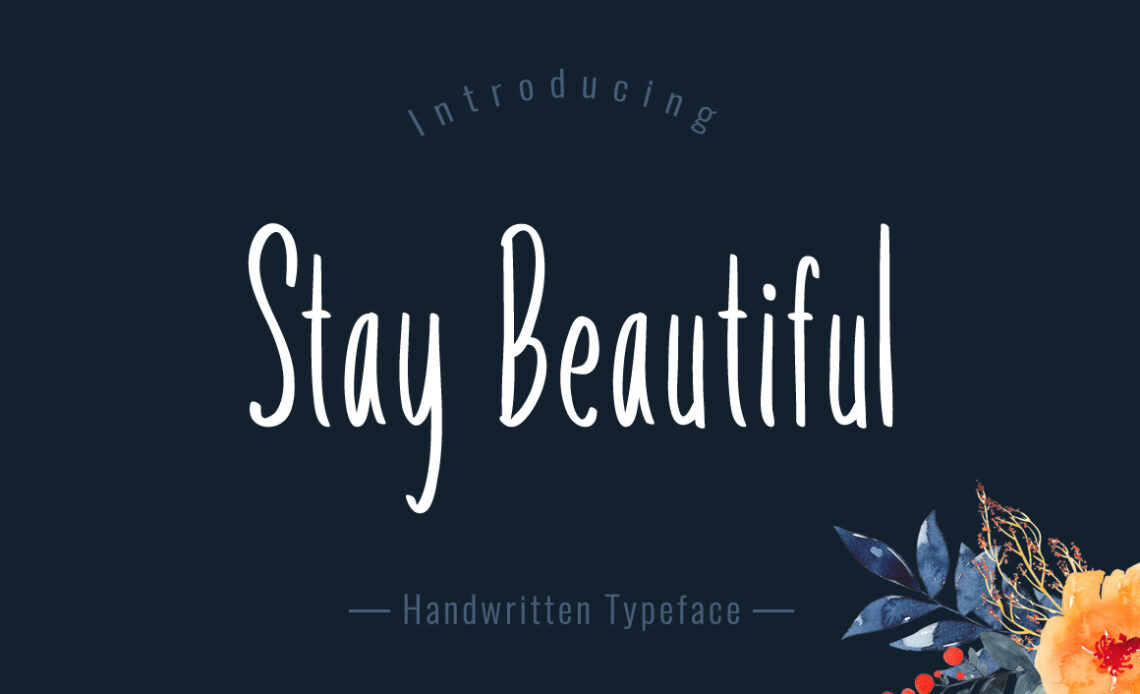
Introducing Stay Beautiful Font, the font that will make your designs shine! This exquisitely enchanting script was crafted by the talented No Gravity Type, and it's ready to add a touch of elegance to all your creative endeavors.
With its graceful curves and flowing strokes, Stay Beautiful Font is perfect for adding a personal touch to your apparel and other designs. It's also incredibly versatile, so you can use it for a wide range of projects, from logos and branding to invitations and social media graphics.
But what really sets Stay Beautiful Font apart is its emotional appeal. This font is designed to evoke a sense of joy, beauty, and happiness. When you use it in your designs, you're not just creating something beautiful—you're creating something that will make people feel good.